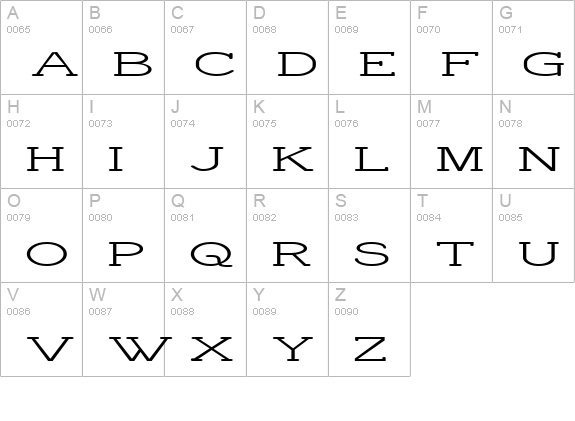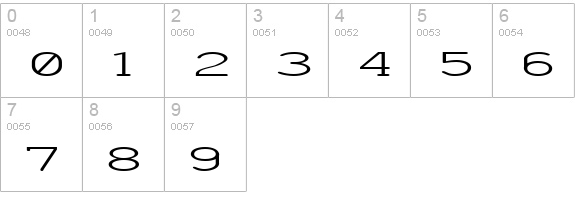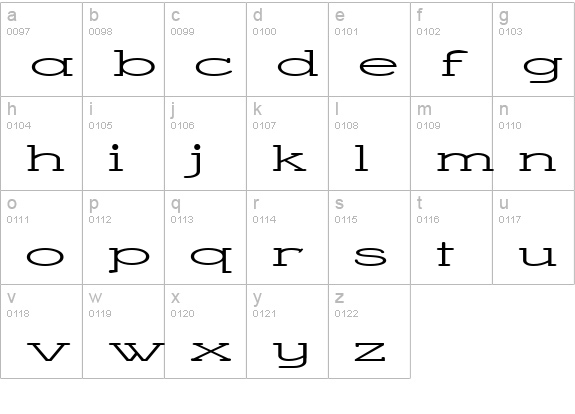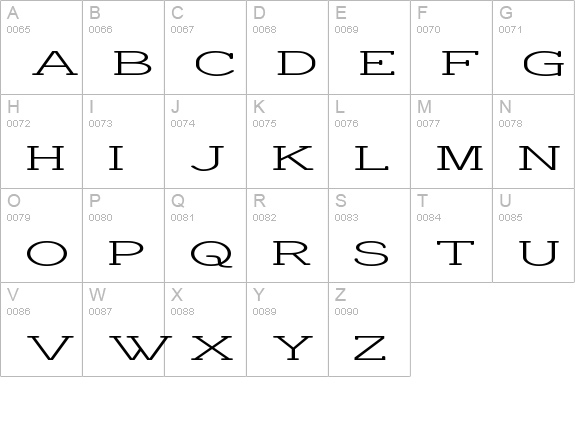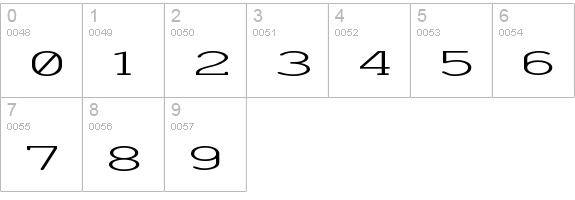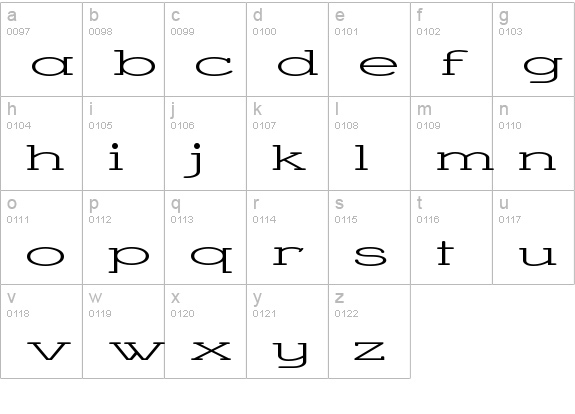
Charrington Superwide font is a versatile and eye-catching typeface that exudes a sense of modernity and sophistication. With its bold and wide letterforms, this font is perfect for making a statement in headlines, posters, banners, and other display designs. The unique characteristics of Charrington Superwide font make it stand out from the crowd and grab the attention of viewers. The best part about Charrington Superwide font is that it is available for free download at FontsMarket.com. This means that you can easily access and use this stylish font in your projects without any cost. Whether you are a designer looking to add a touch of flair to your creations or a business owner wanting to make your branding more memorable, Charrington Superwide font is a fantastic choice. Don't miss out on the opportunity to elevate your designs with the bold and striking Charrington Superwide font. Download it for free today and see the difference it can make in your projects!